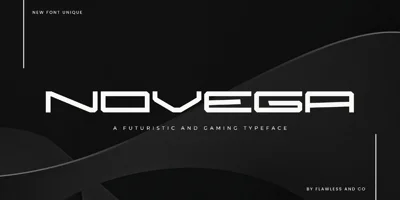
Novega Font
Novega Font is perfect for innovation-focused startups, cutting-edge technology brands, futuristic product launches, progressive design agencies, next-generation service companies, revolutionary app interfaces, breakthrough scientific communications, and pioneering business ventures. This forward-thinking typeface brings innovative excellence, technological advancement, and progressive sophistication to any project requiring typography that communicates breakthrough thinking and the pioneering spirit of next-generation innovation.
What makes Novega Font exciting is its exceptional ability to embody the essence of innovation through letterforms that seem to emerge from the future with cutting-edge precision and revolutionary design thinking. The font features progressively designed character shapes with advanced proportions, innovative spacing that reflects next-generation design principles, and futuristic details that evoke breakthrough technology and pioneering advancement. Its innovative character represents the forward momentum of technological progress and creative revolution, making it perfect for brands that want to communicate innovation, breakthrough thinking, and the inspiring vision of next-generation excellence and technological leadership.
The Novega Font family typically includes multiple weights with innovatively designed uppercase and lowercase letters, progressive numerals, and comprehensive punctuation marks that maintain the font's cutting-edge appeal and technological sophistication. The design emphasizes breakthrough innovation while providing practical typography options for contemporary technology and progressive communication applications that require both futuristic vision and functional excellence.
Whether you're creating innovation-driven brand identities or developing breakthrough technology materials, Novega Font offers unmatched innovative authenticity and progressive appeal. This typeface excels in applications where its forward-thinking character can communicate technological leadership and innovative excellence. Its cutting-edge aesthetic makes it particularly effective for tech companies, innovation labs, and progressive organizations that want to associate with breakthrough thinking and next-generation advancement. The font's pioneering presence helps establish innovative credibility while ensuring memorable recognition through typography that celebrates the limitless potential of Novega Font technological innovation and progressive vision.